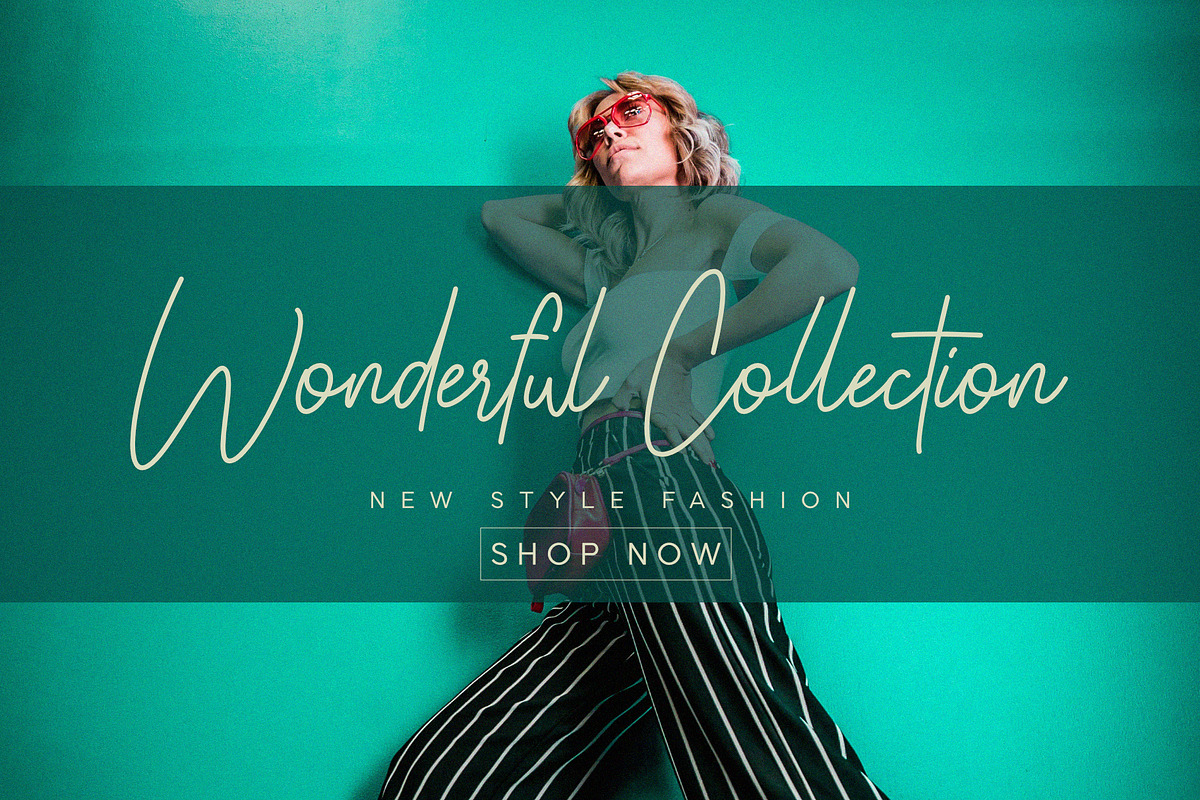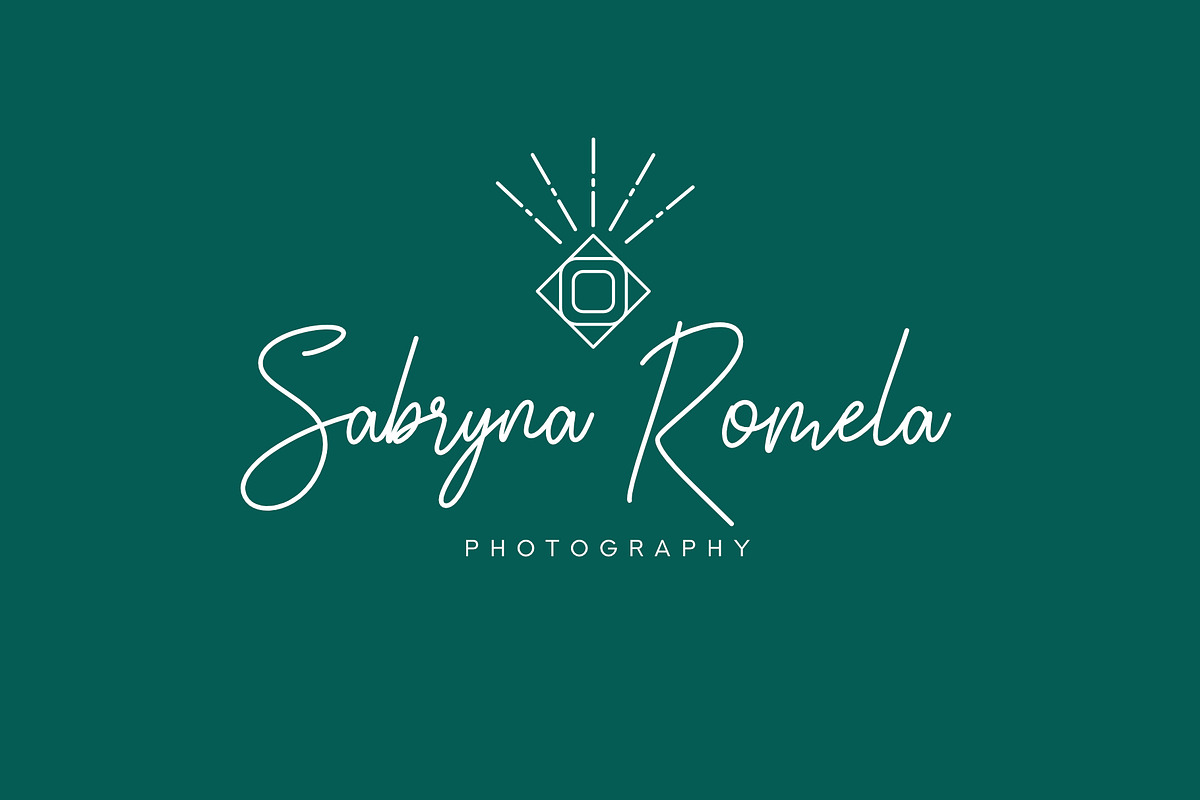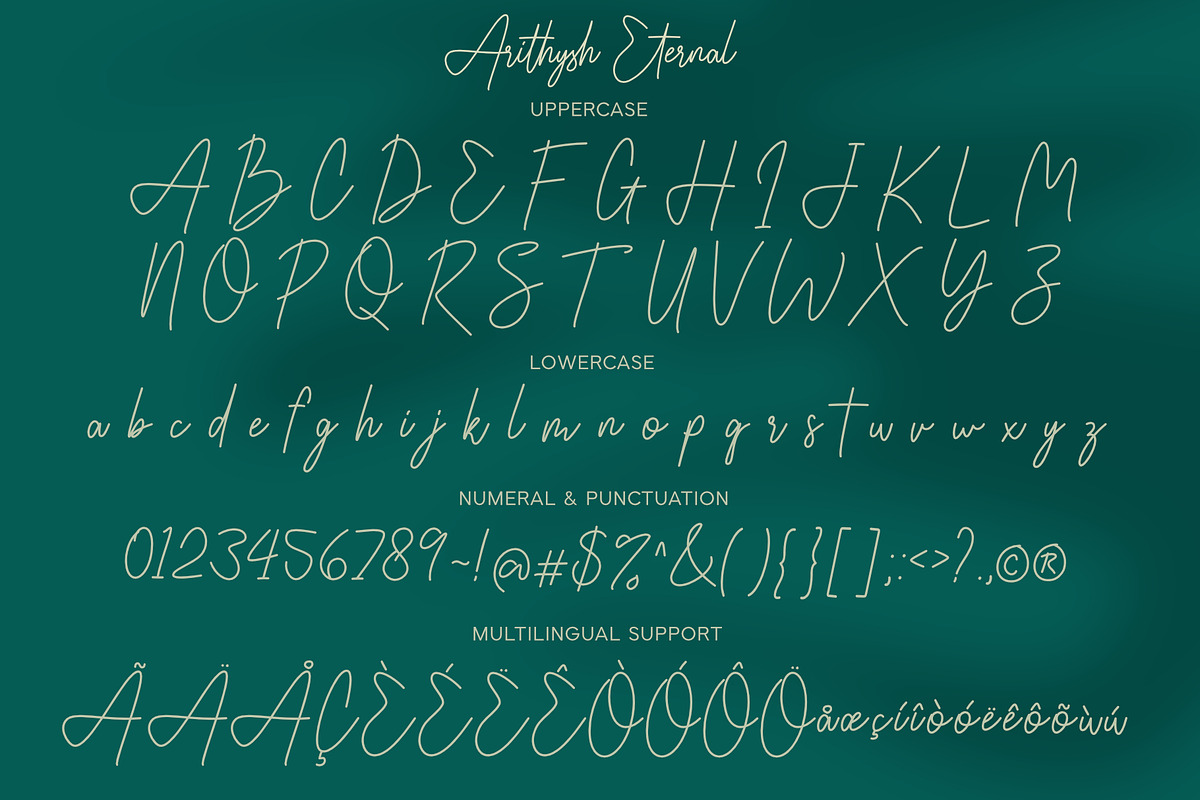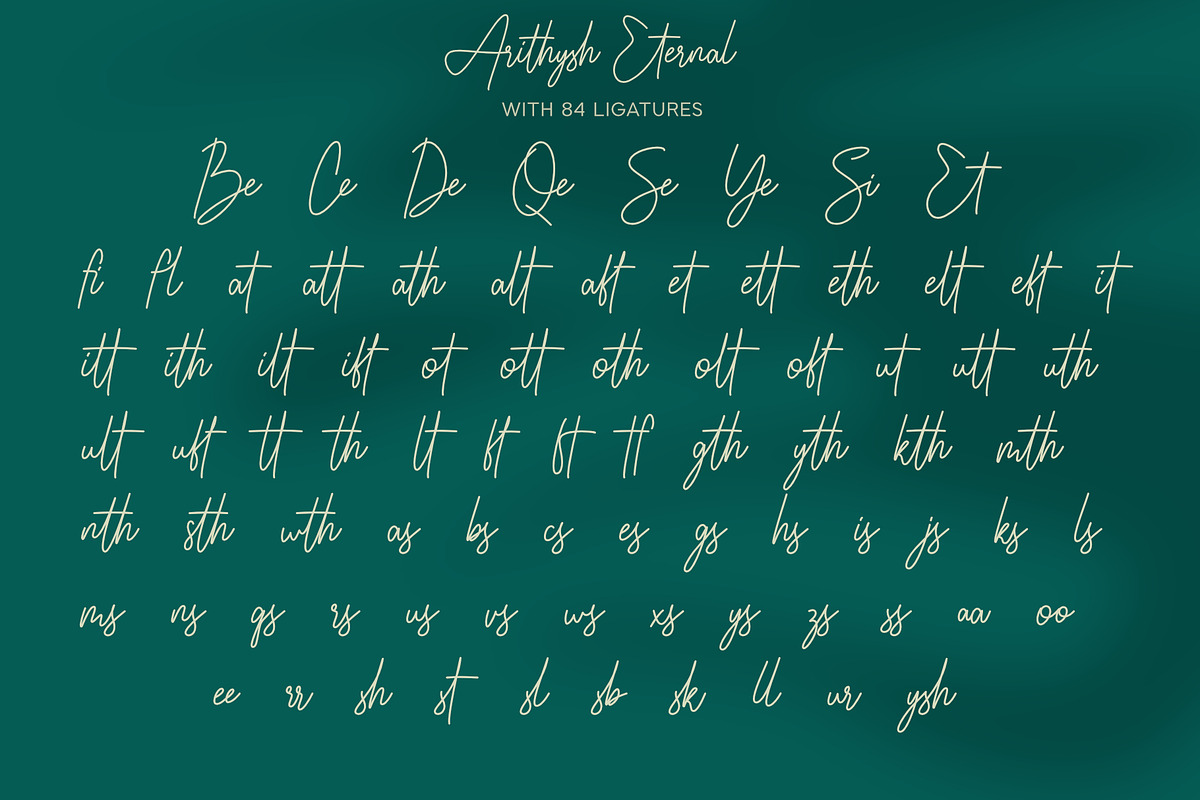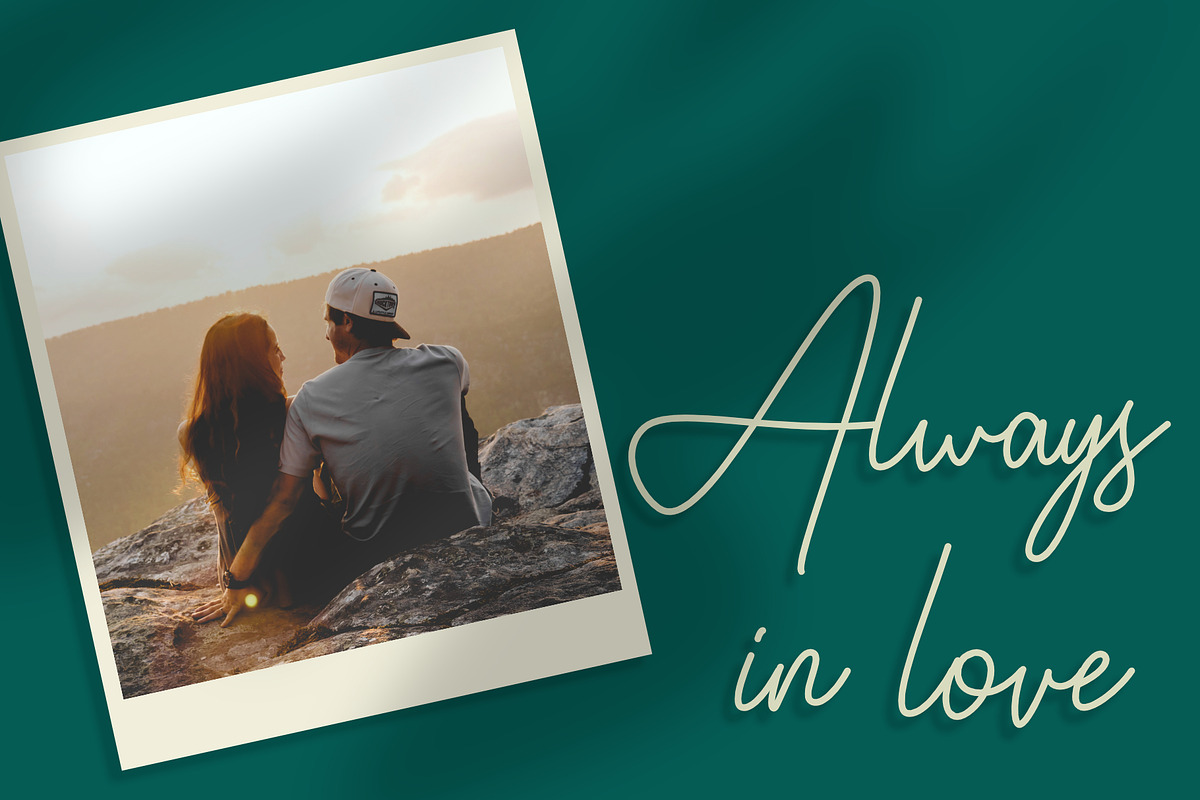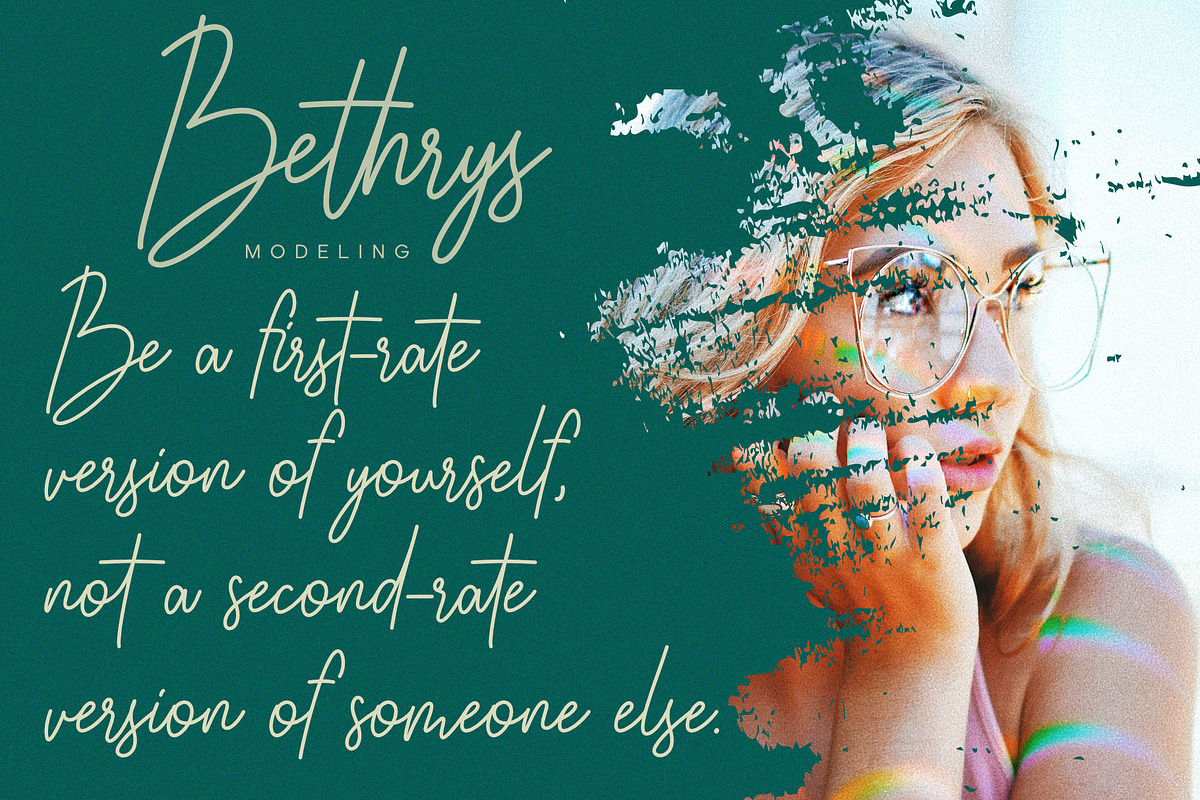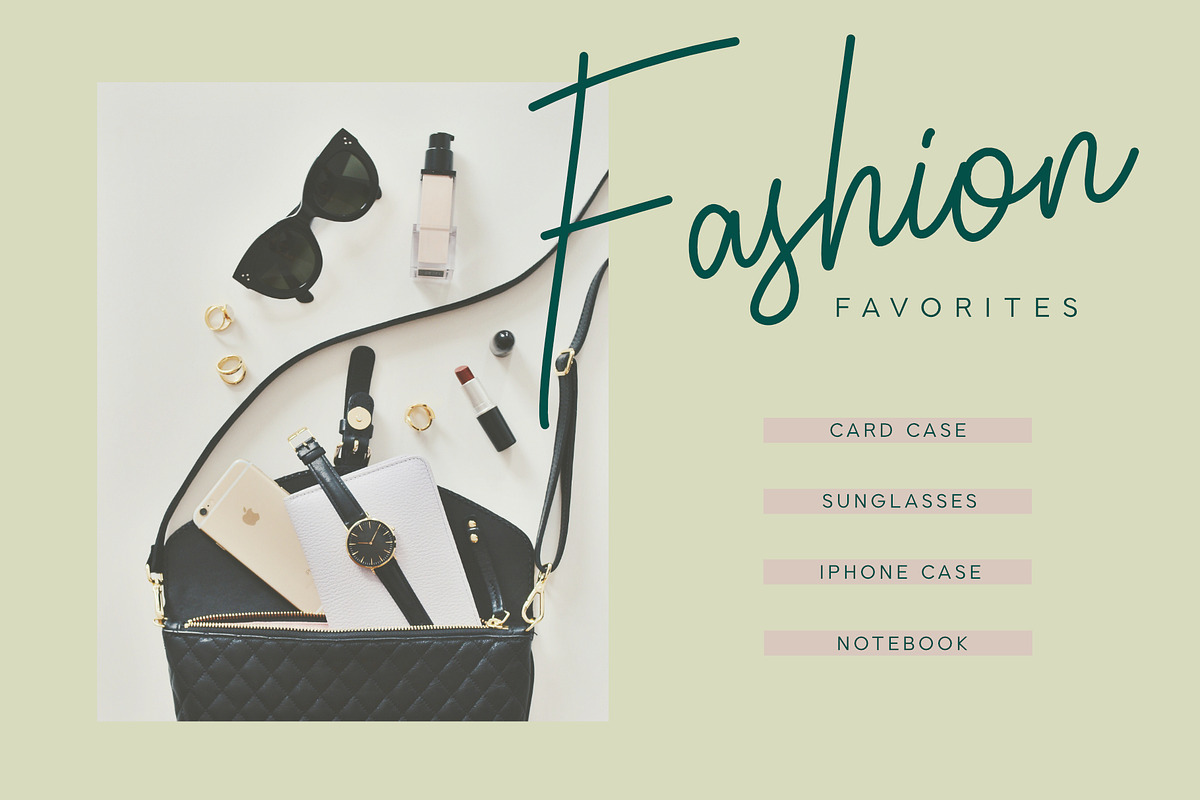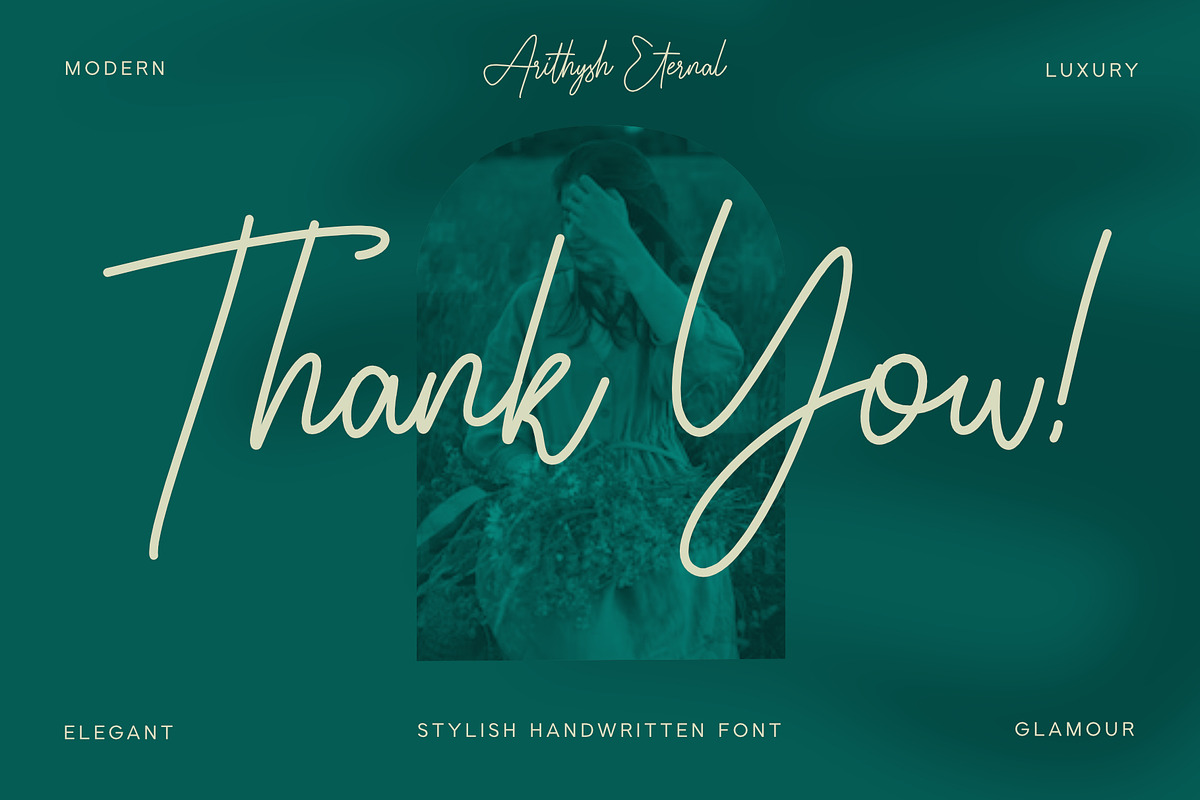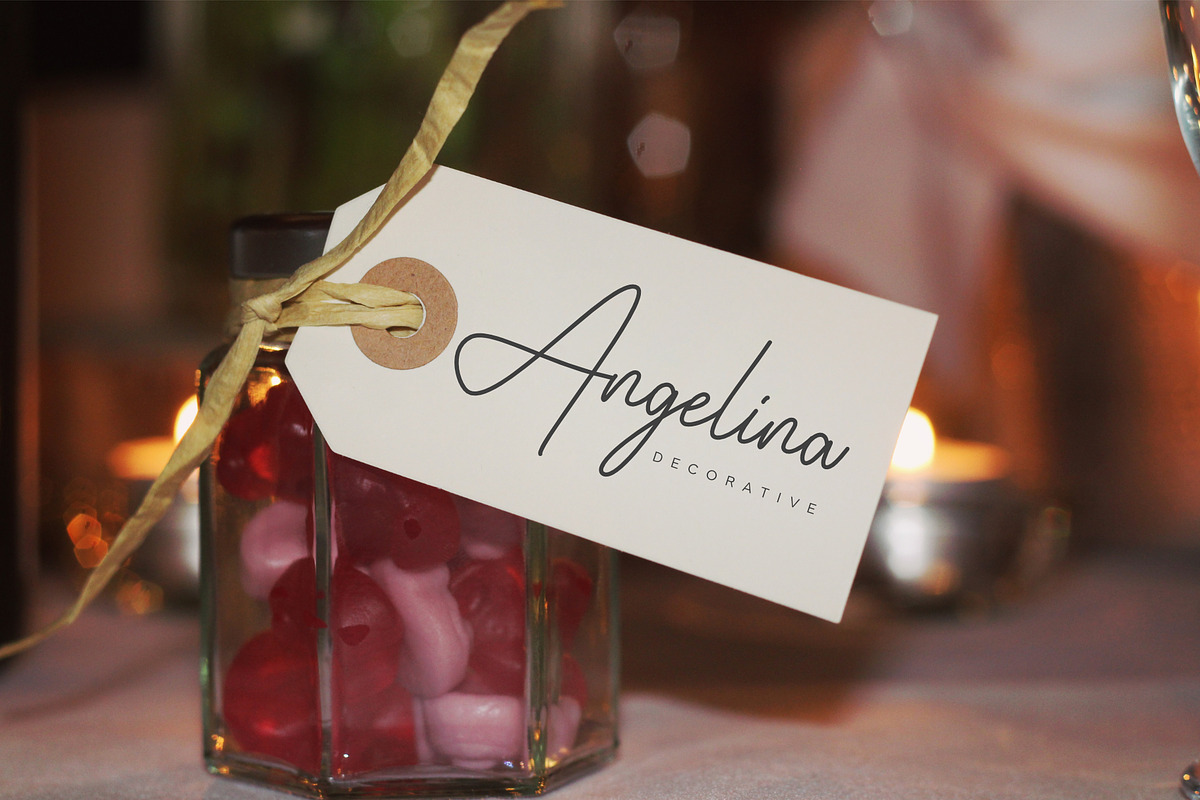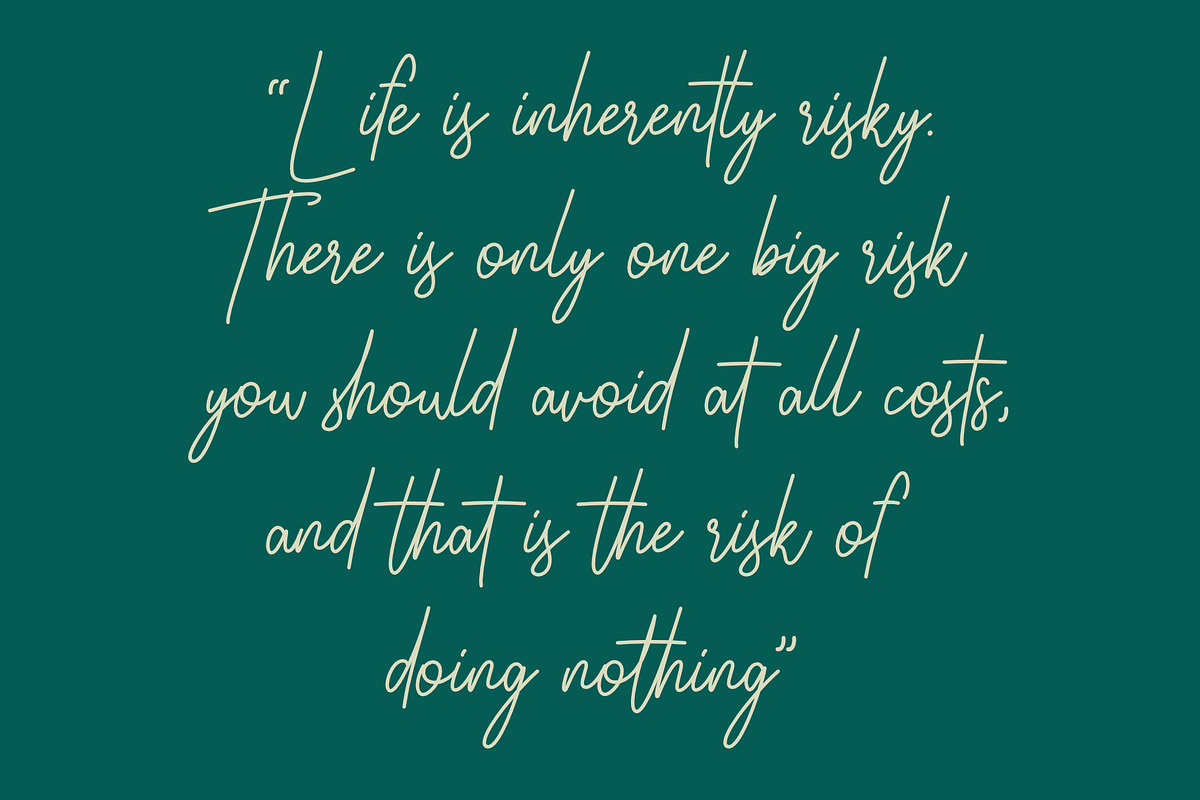
Arithysh Eternal
Arithysh Eternal Stylish Handwritten Font consisting of a fashionable sophisticated signature-style script with its own unique curves and an elegant inky flow.
Arithysh Eternal Stylish Handwritten Font perfect for your favorite projects. It looks stunning on wedding invitations, thank you cards, quotes, greeting cards, logos, business cards and every other design which needs a handwritten touch. Fall in love with its incredibly distinct and timeless style and use it to create spectacular designs!